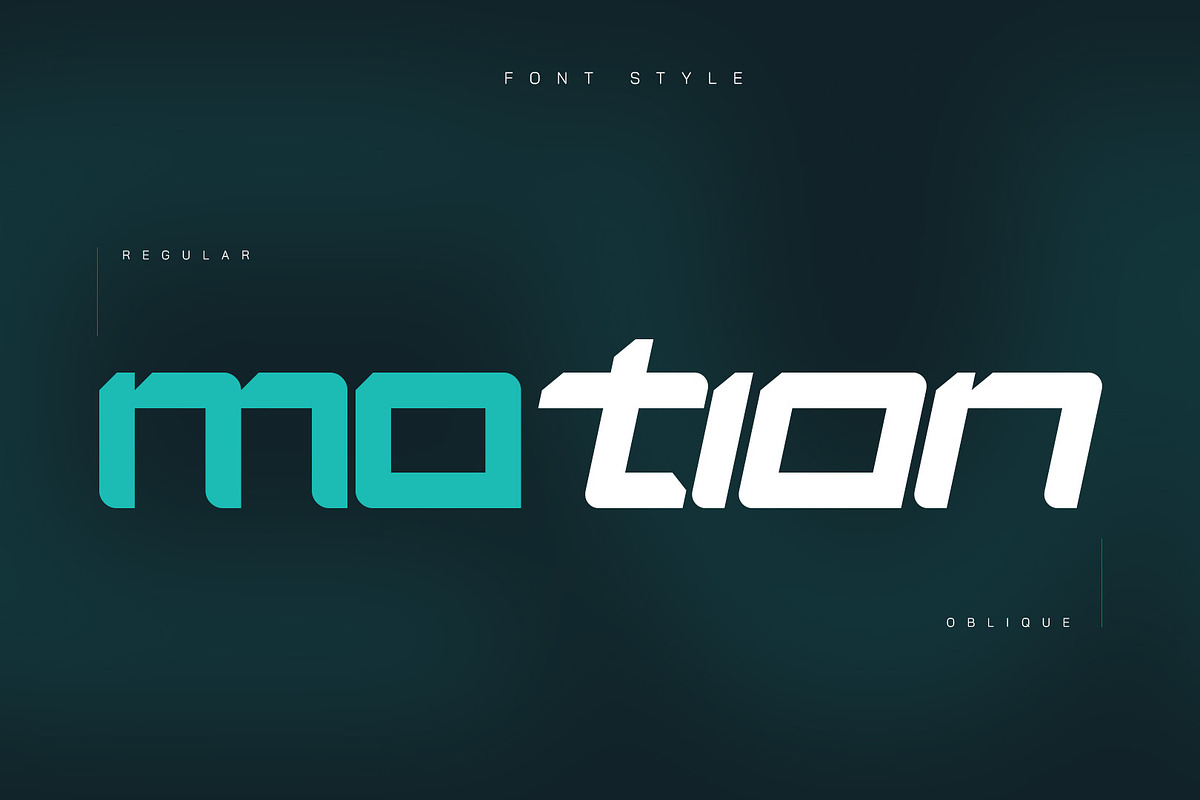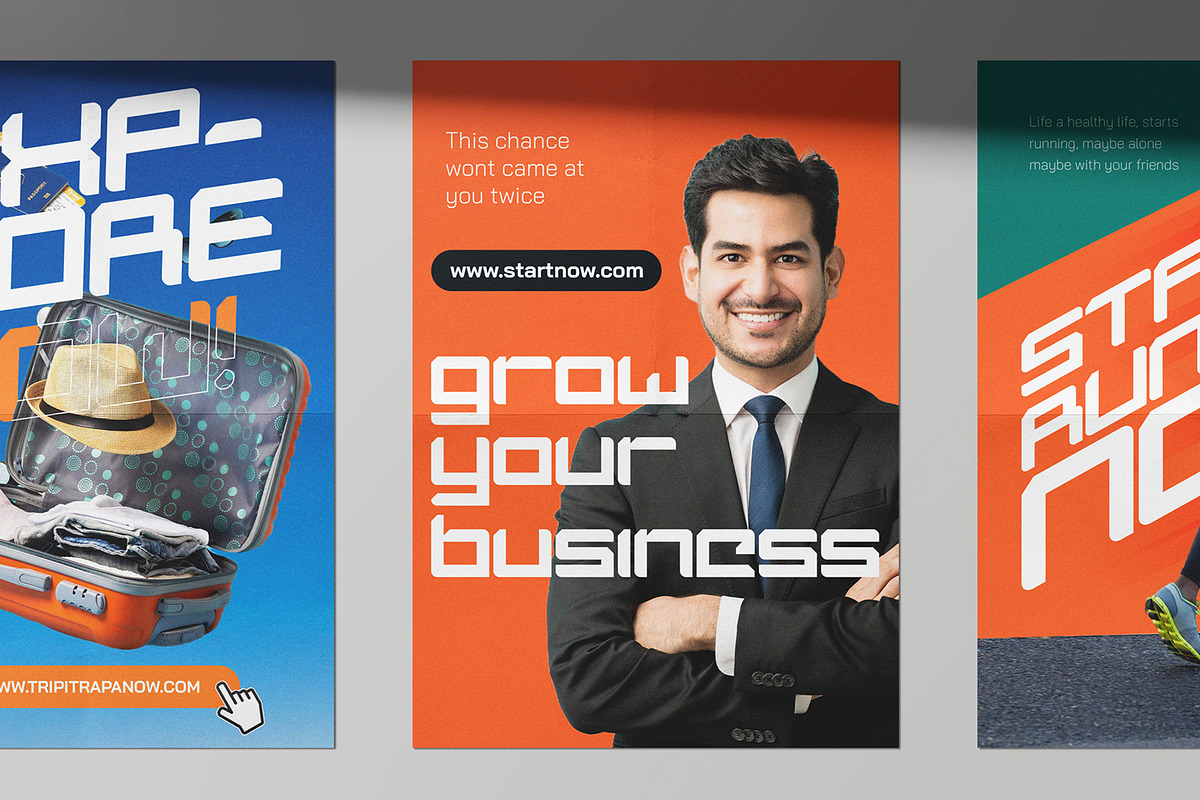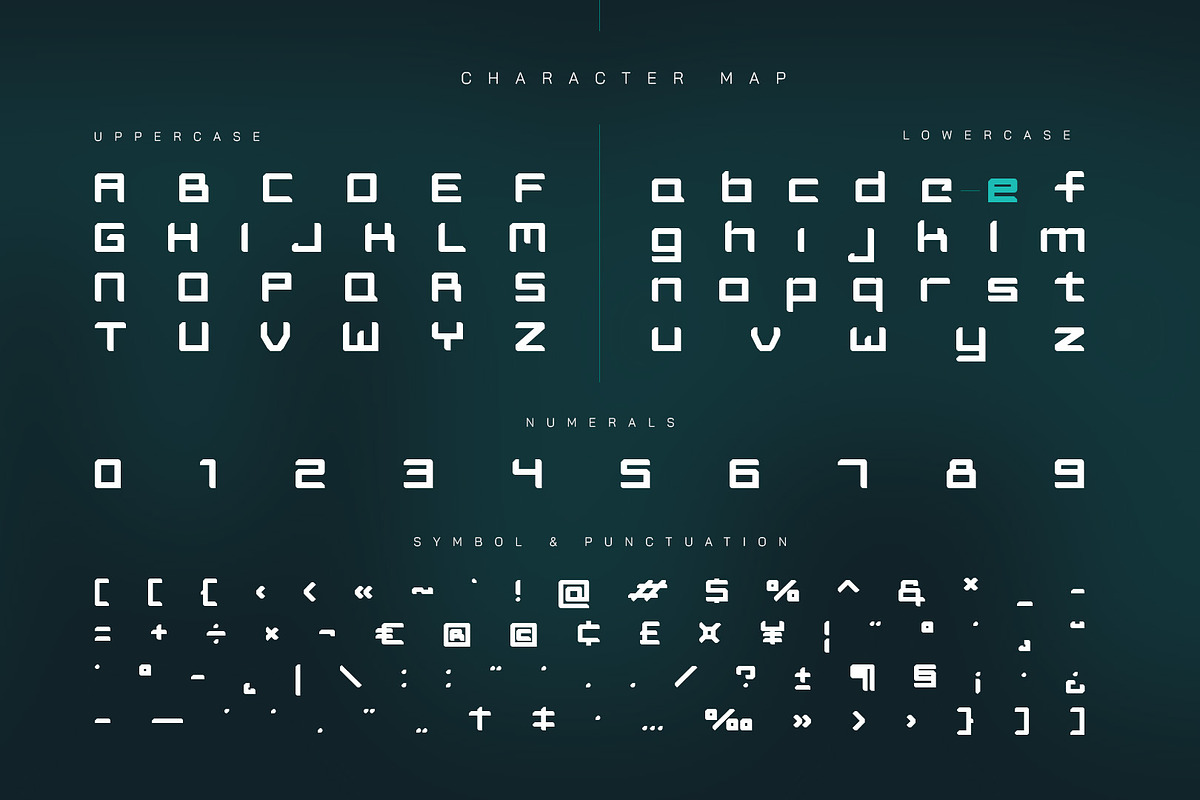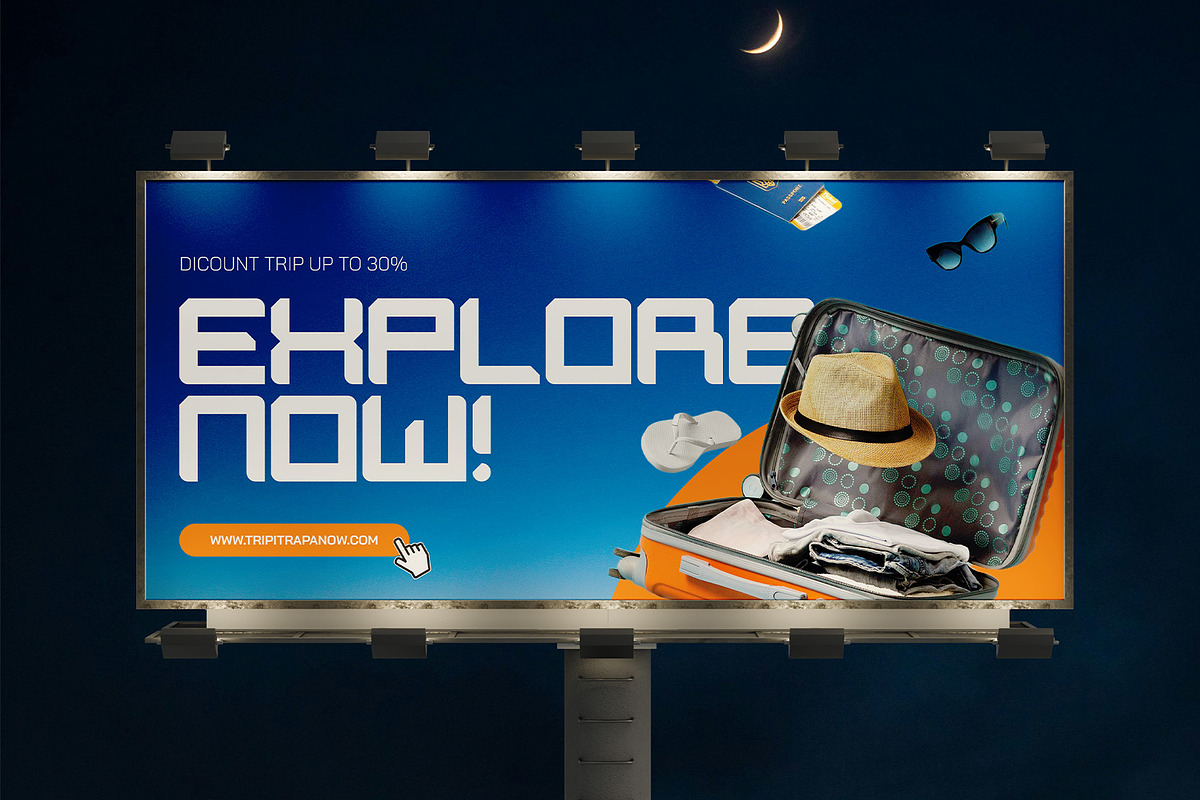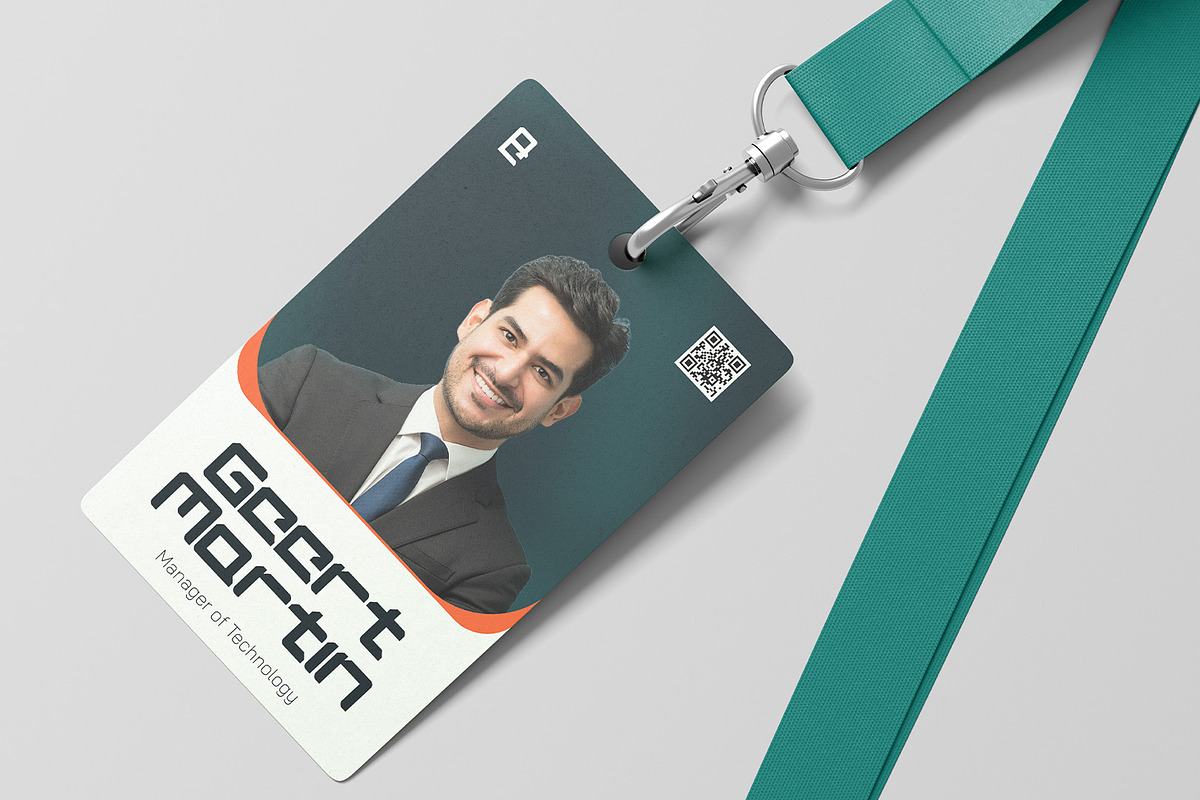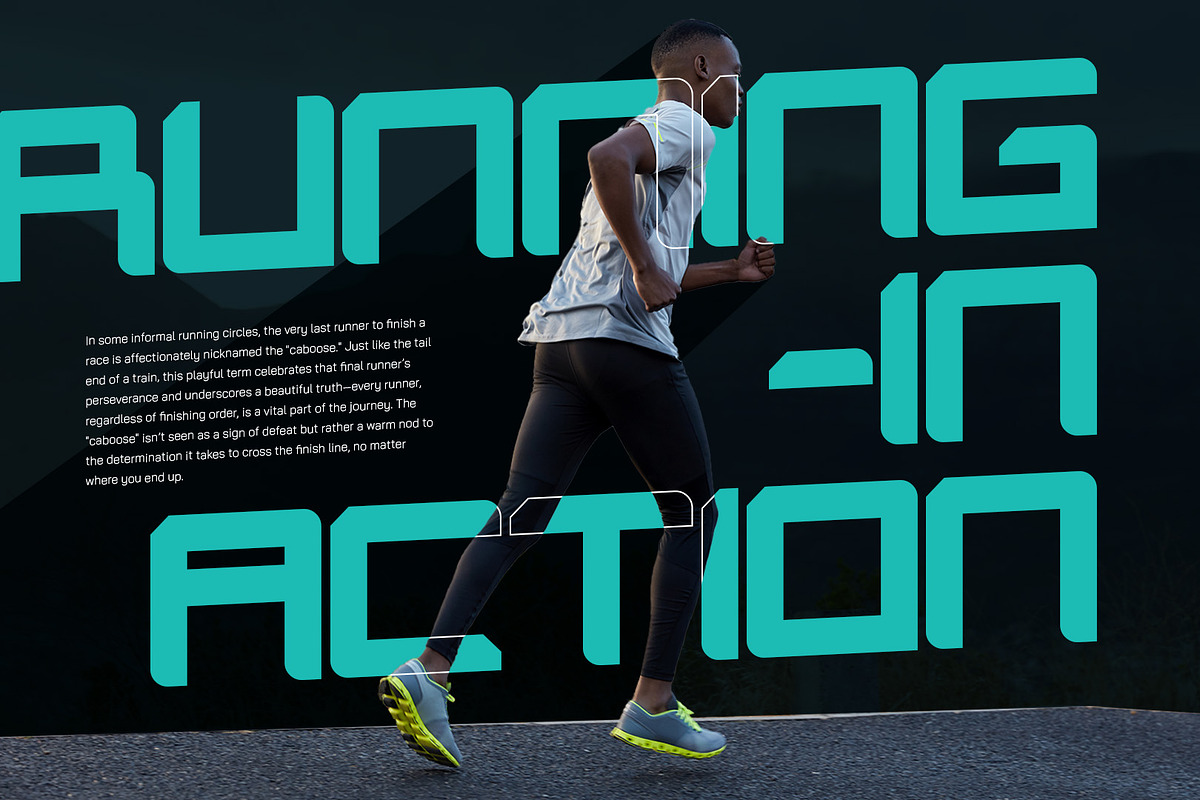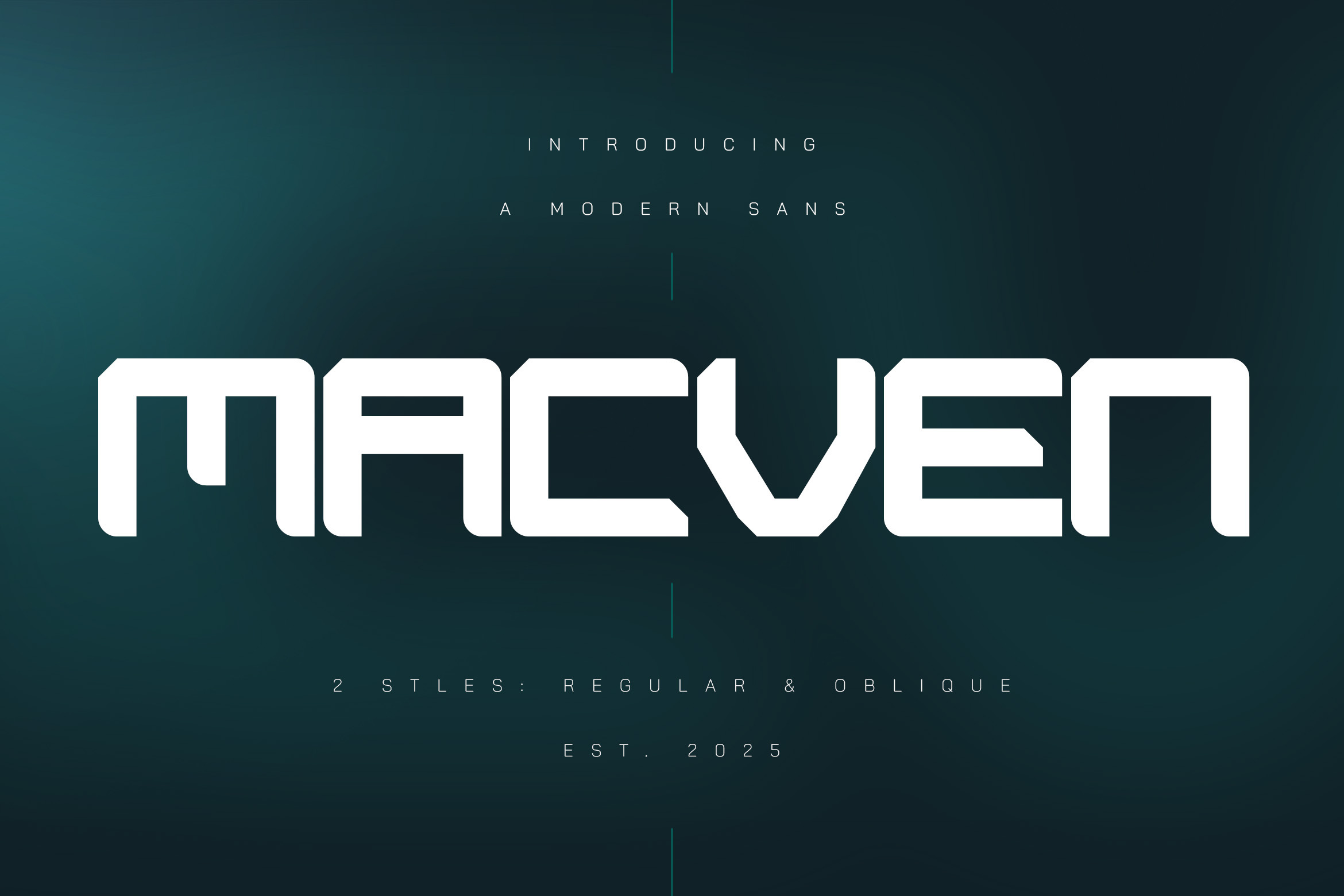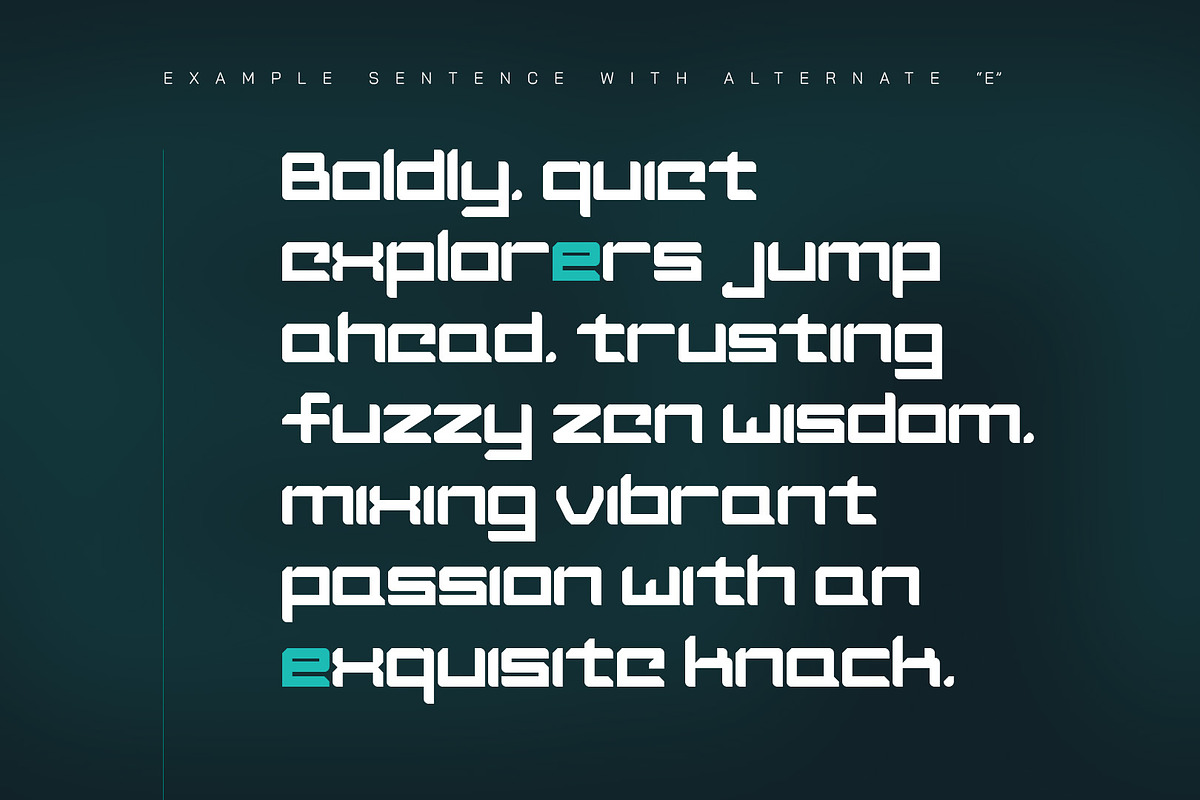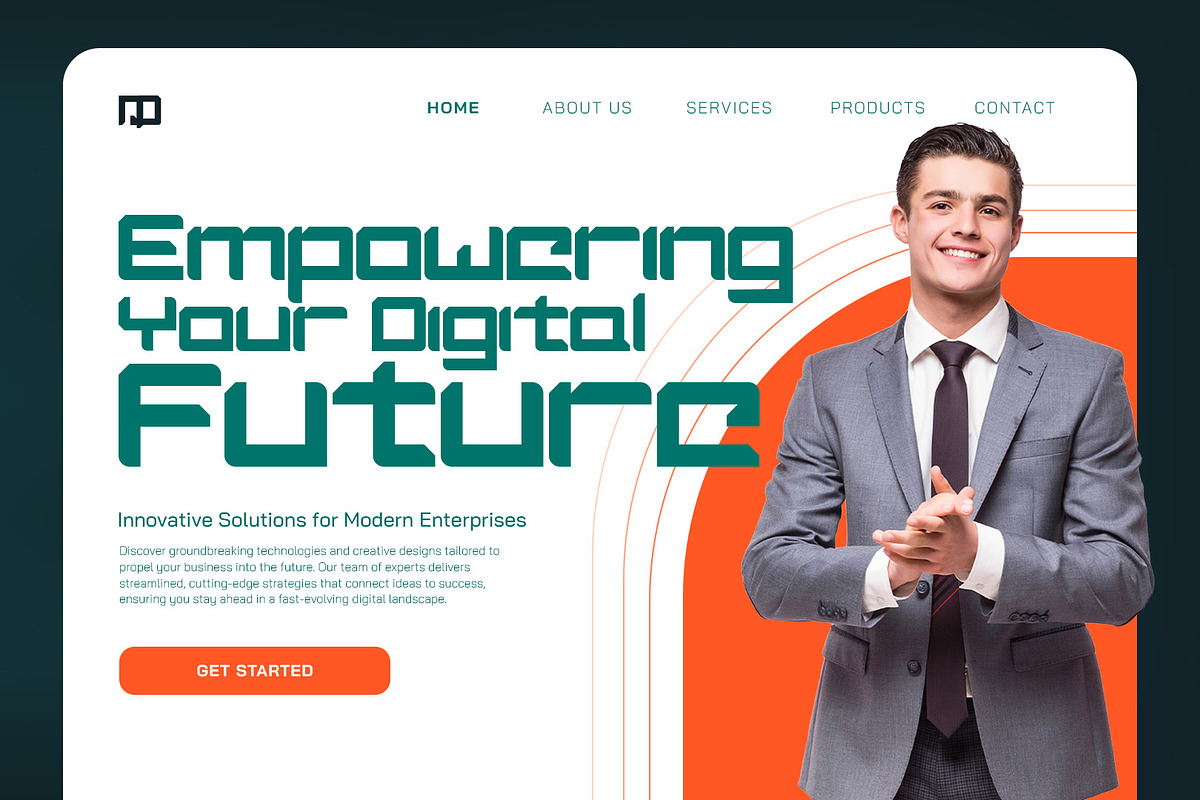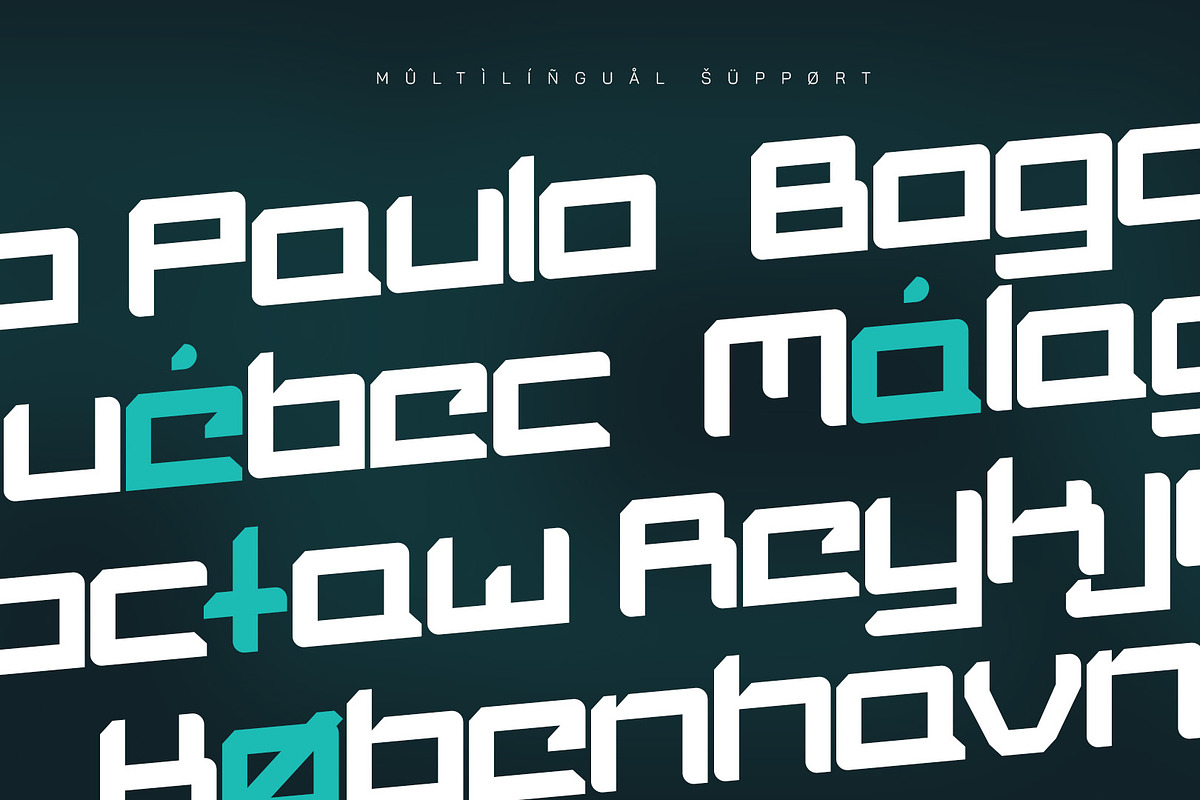
Macven - Modern Geometric Sans Font
Macven is a robust, geometric typeface with a modern flair. Uniform thickness and sharp angles create a blocky yet refined appearance, balancing legibility with a futuristic edge for striking consistency in both text and numbers. Its versatility makes it ideal for diverse design applications, including headlines, logos, digital interfaces, and branding projects. The contemporary aesthetic, blending minimalism and intricate angular details, offers a unique visual language for modern creative sensibilities.
- 2 Styles Font : Regular and Oblique
- Standard letter A-Z and a-z
- Numeral, Symbol, and Punctuations
- OpenType Feature